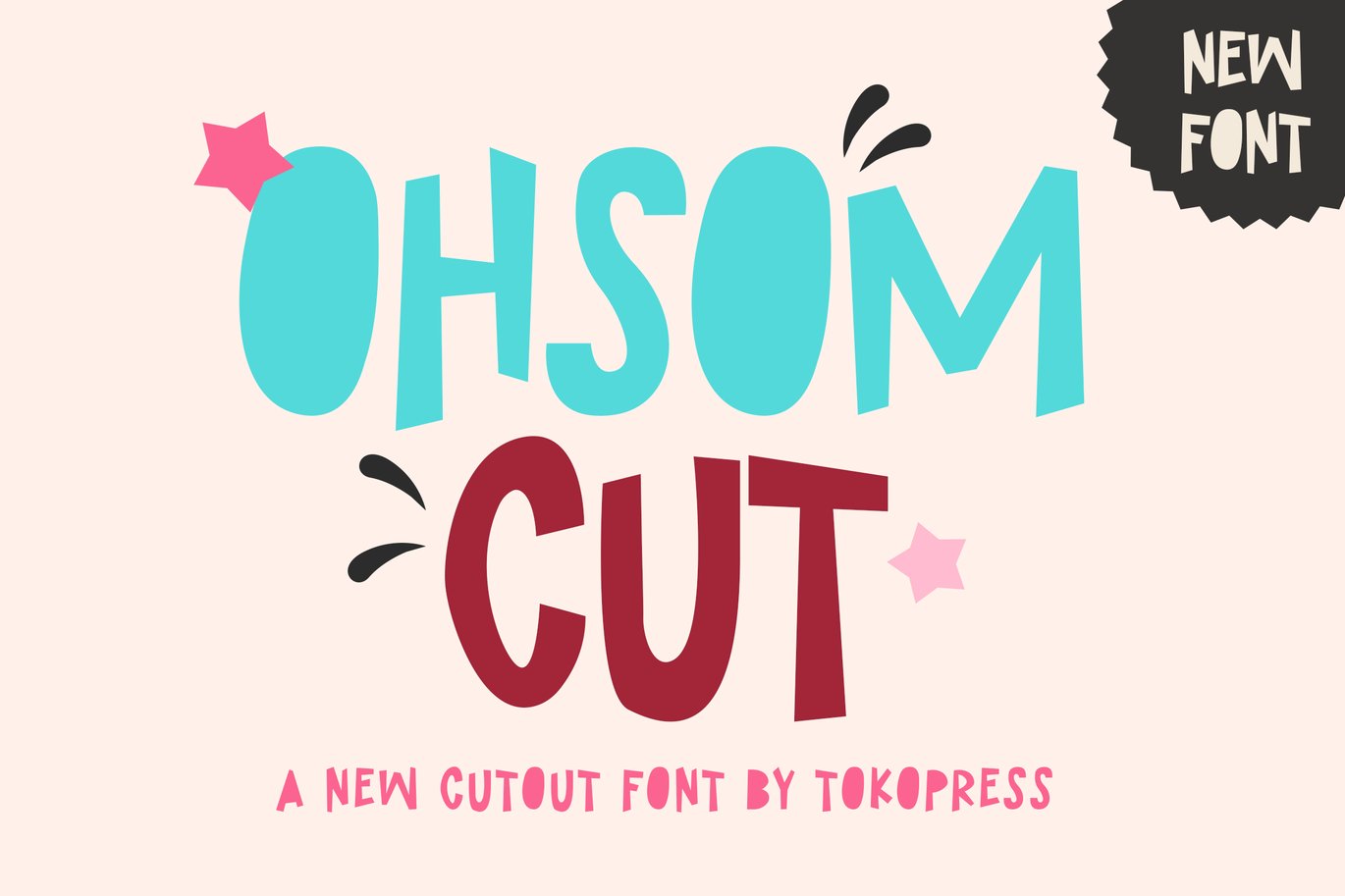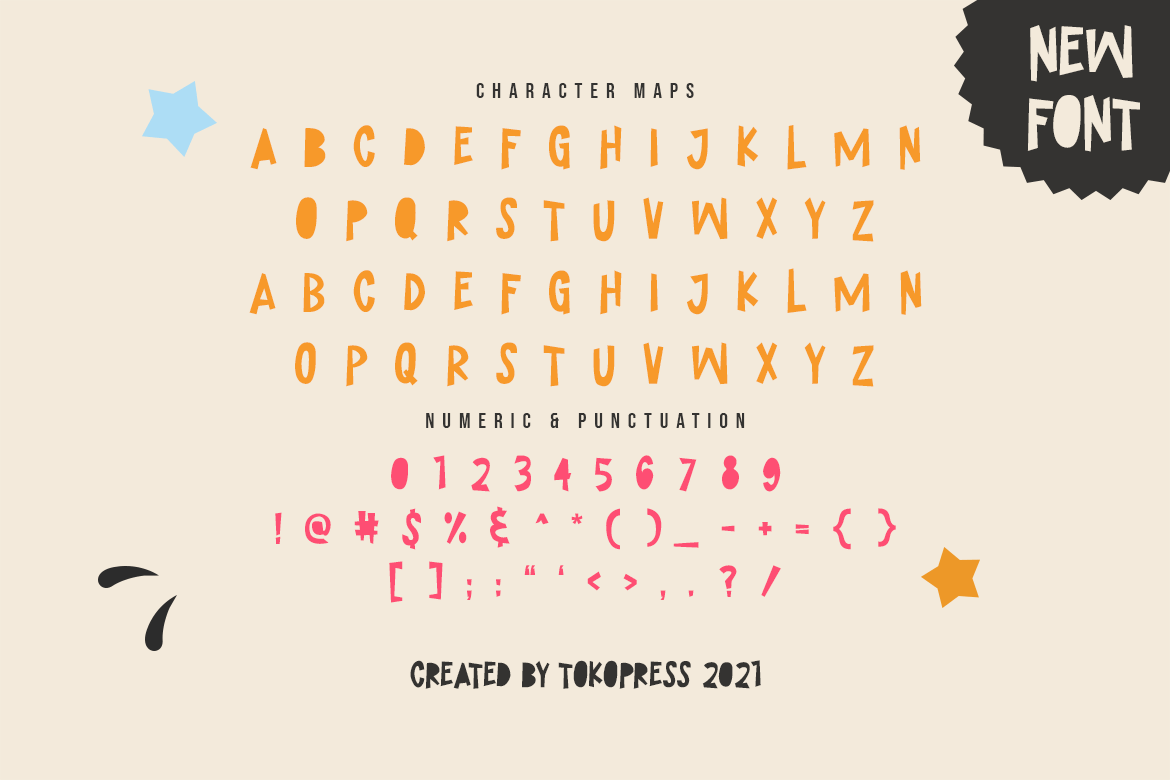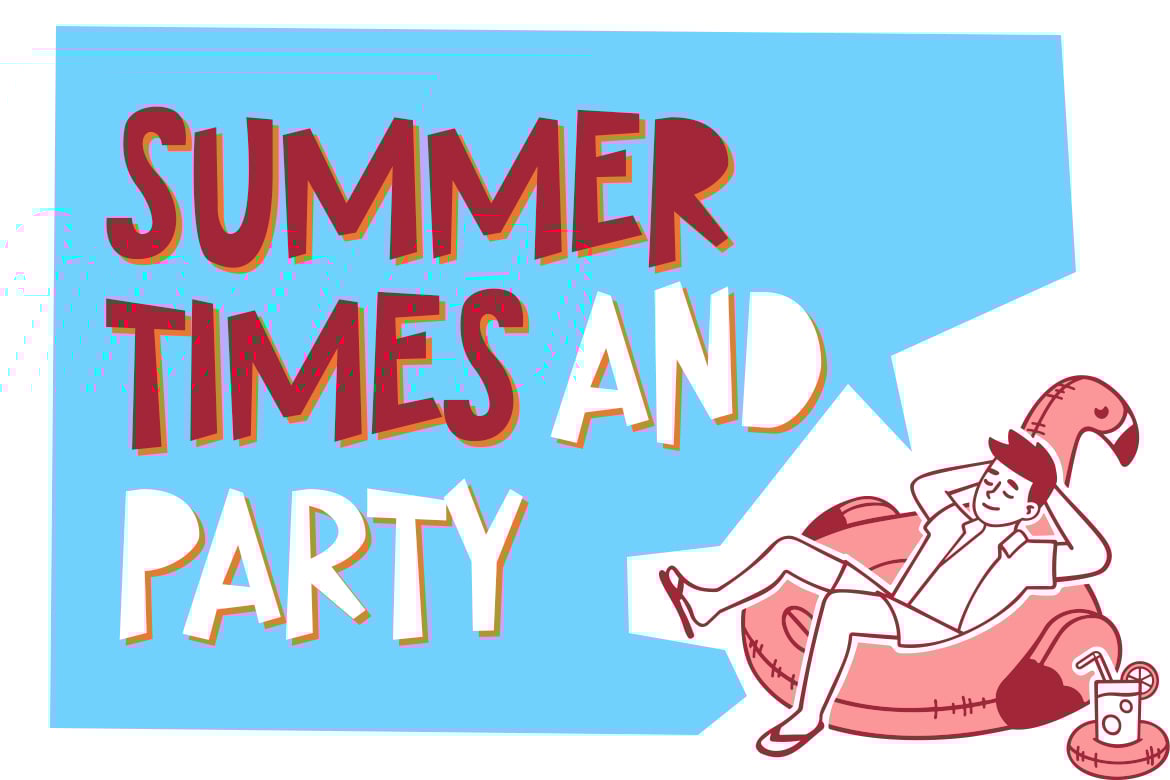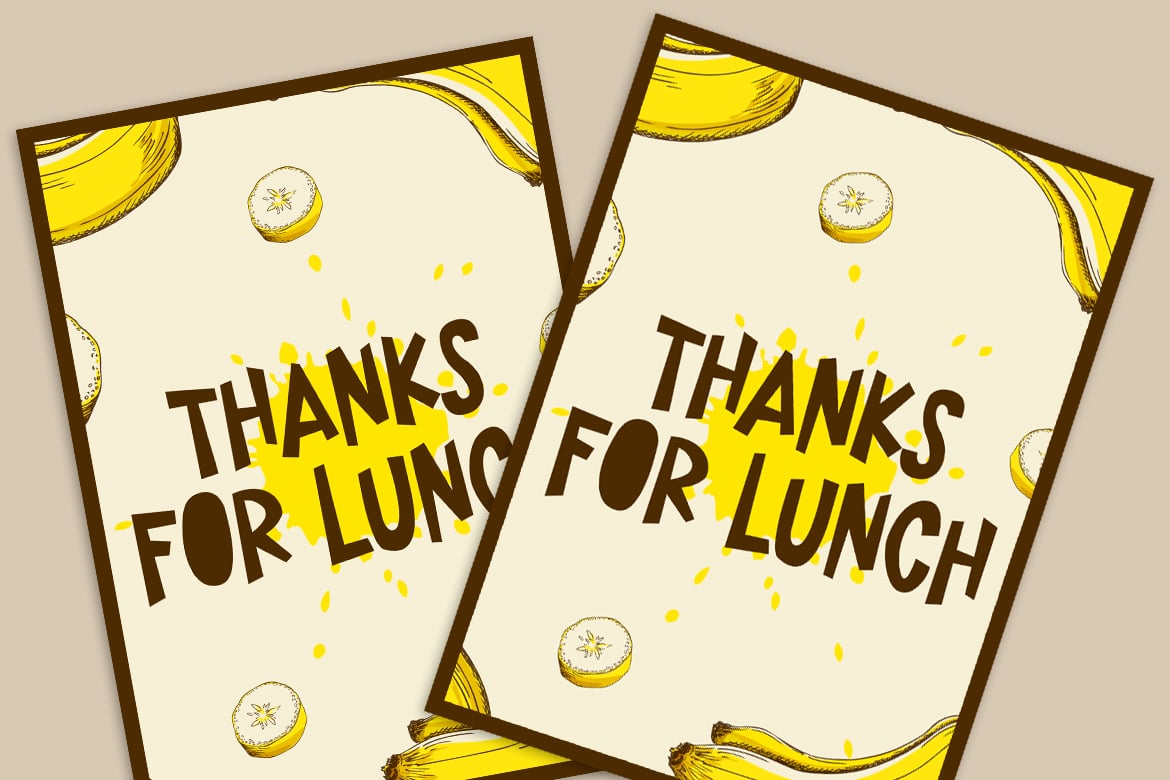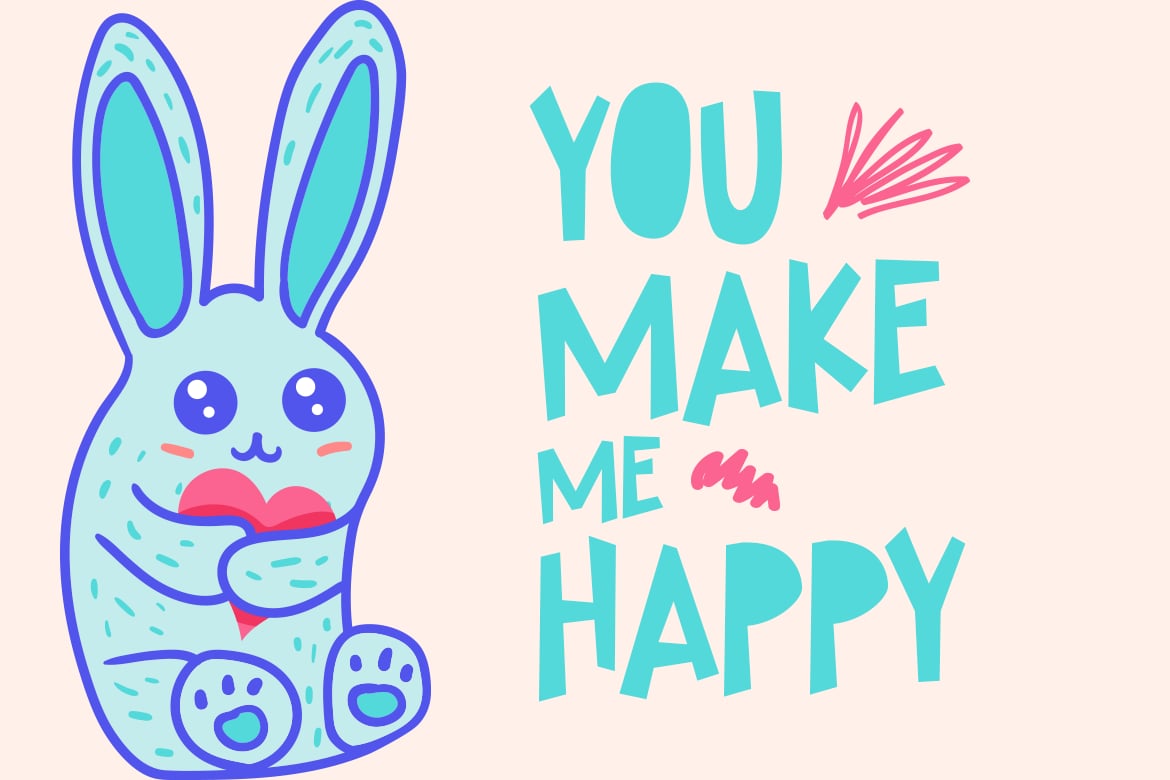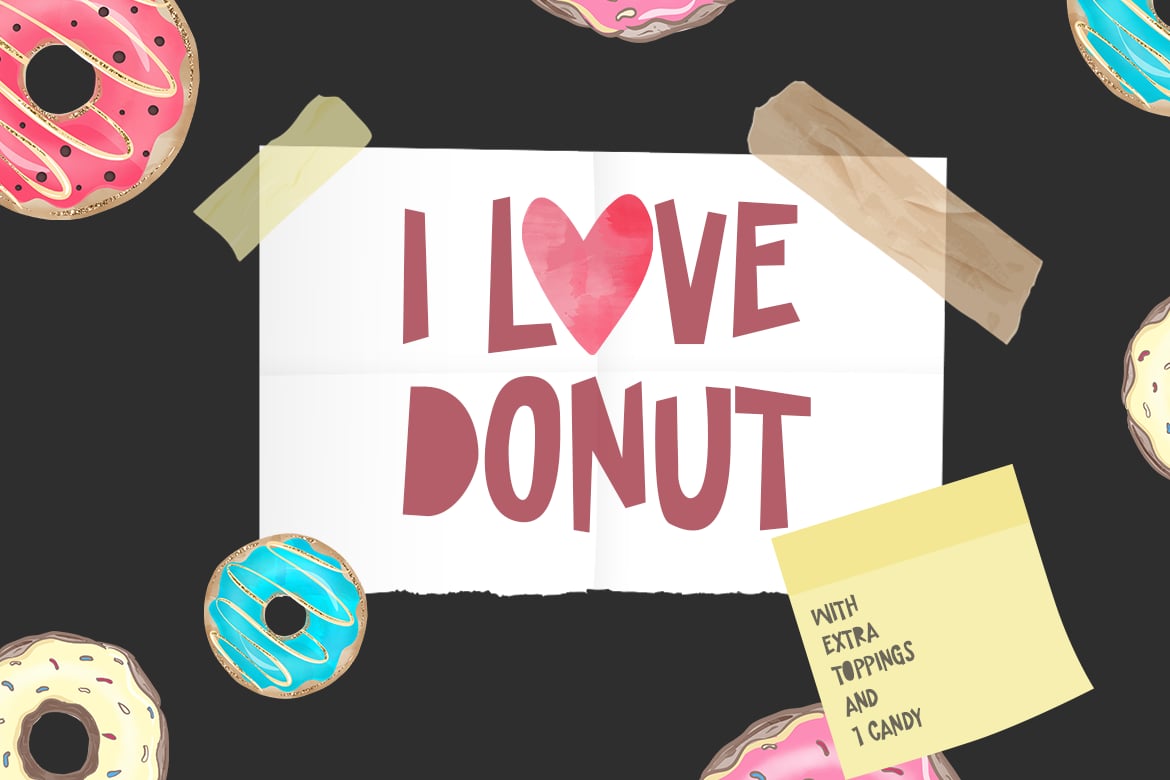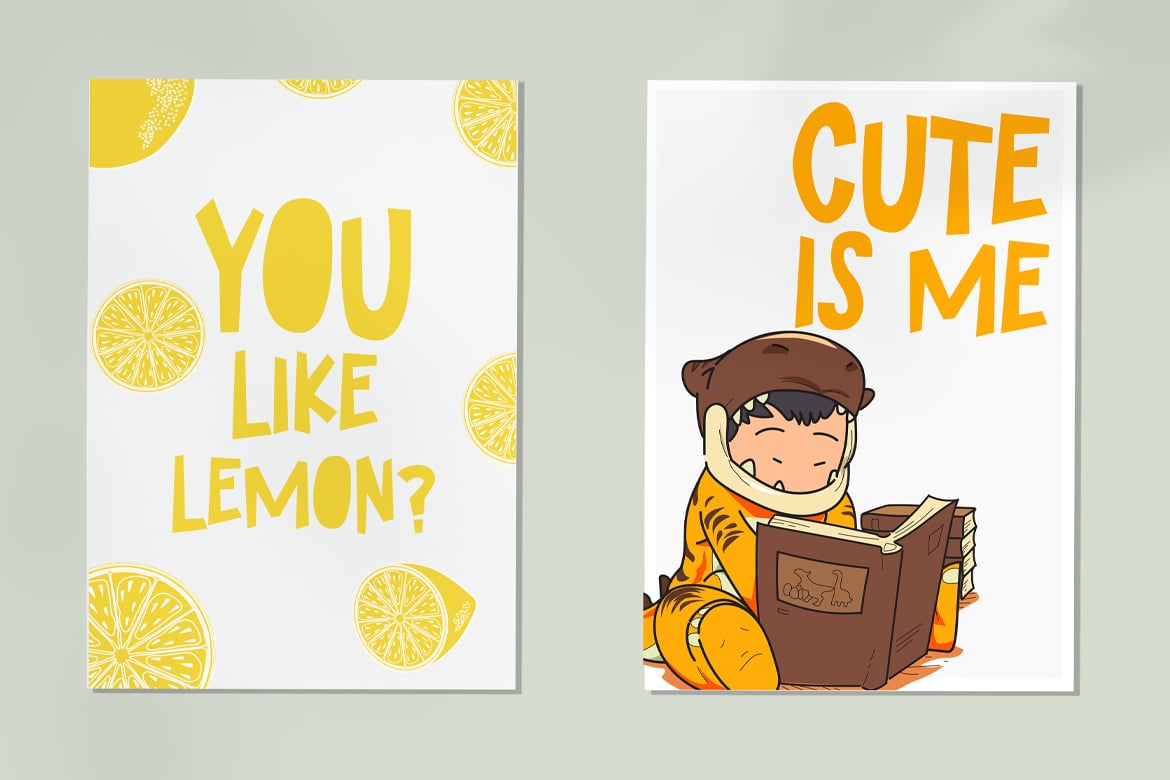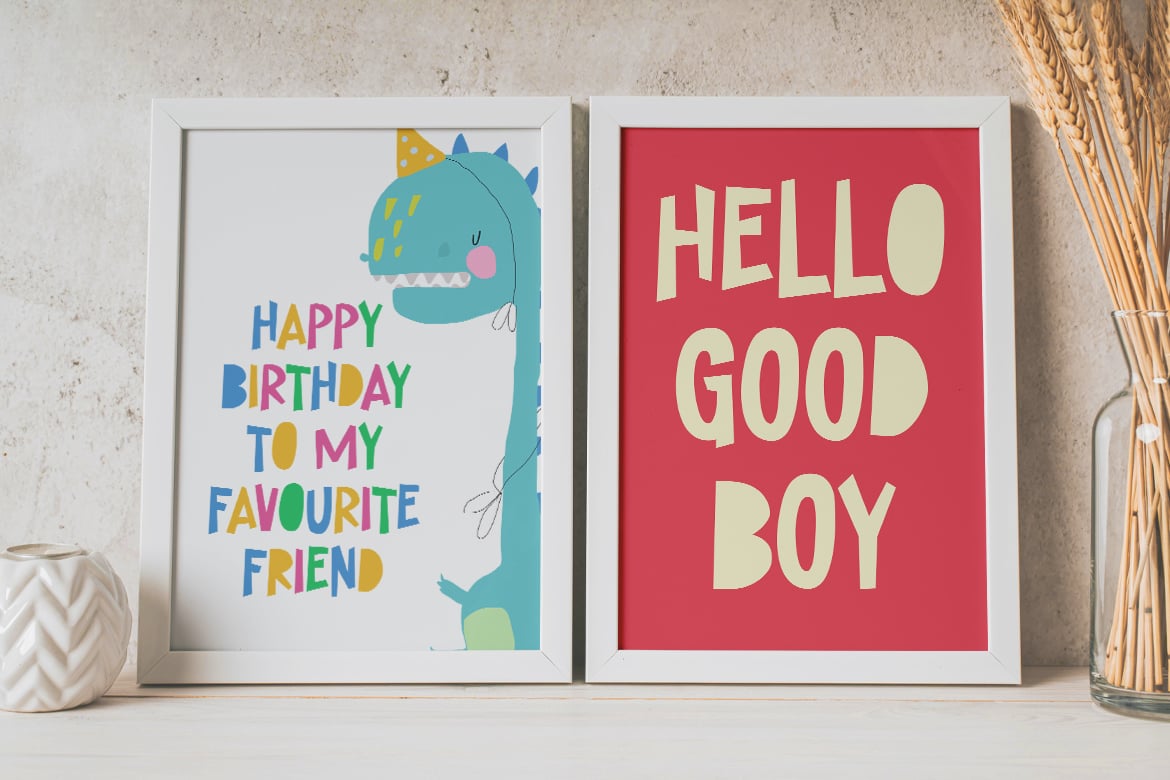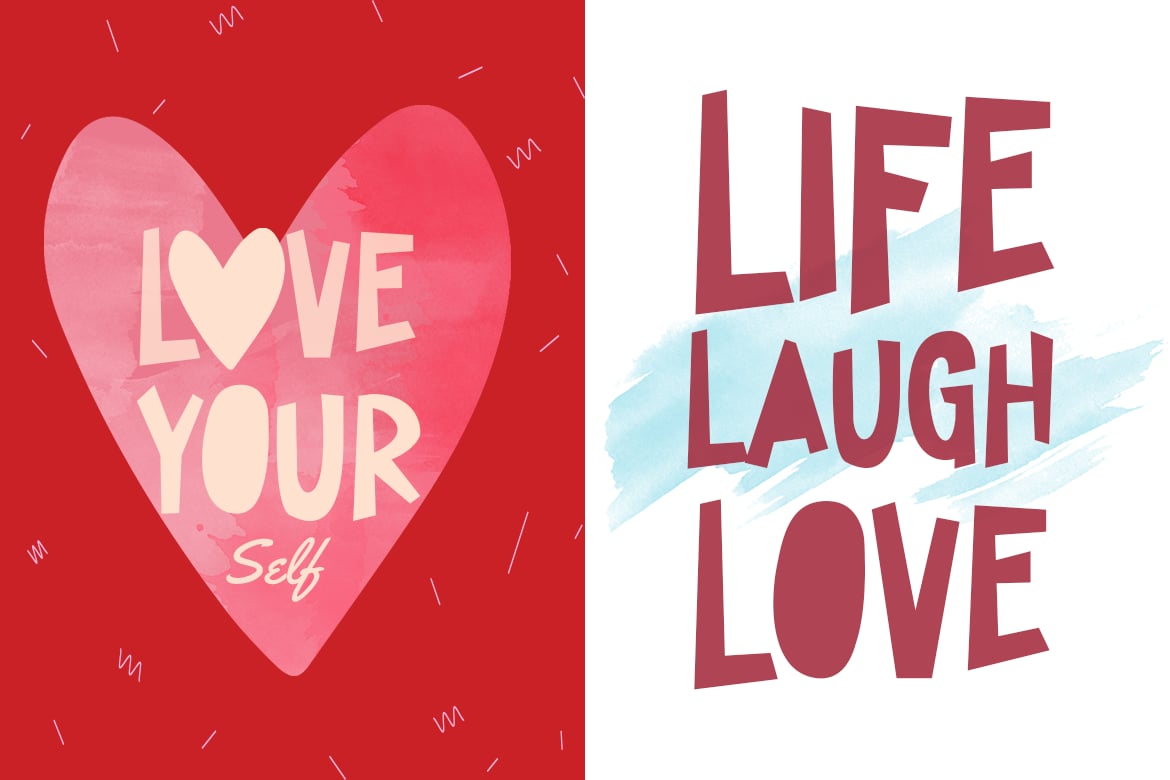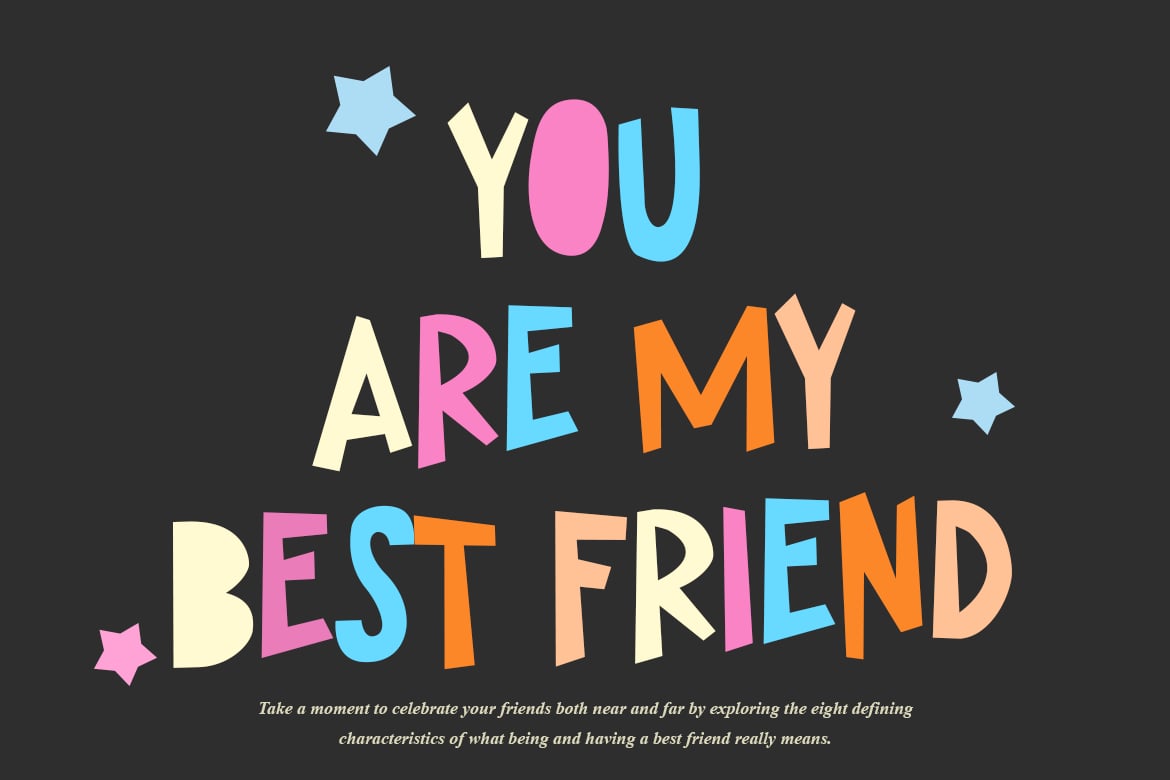
Ohsom Cut – Cartoon Font
Ohsom Cut – Cartoon Children Font
Sweet bouncy baseline with cartoon shape font, The bold but playful sans serif shape will bring a lot of joy in kids heart.
Suit perfectly for kids market, online games, stationary, school supplies font, poster, movie title, youtube covers, youtube thumbnails, social media page covers and so on…